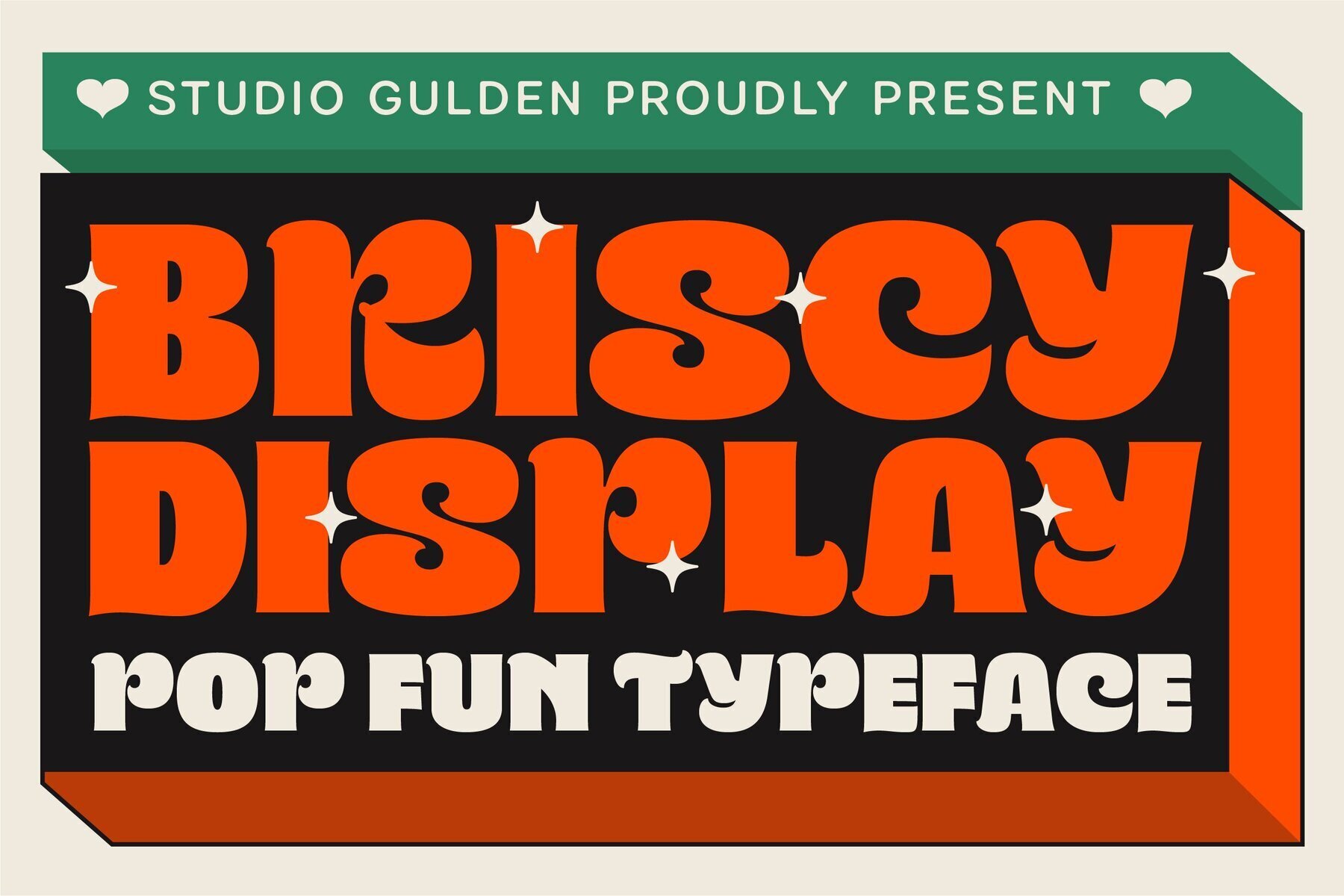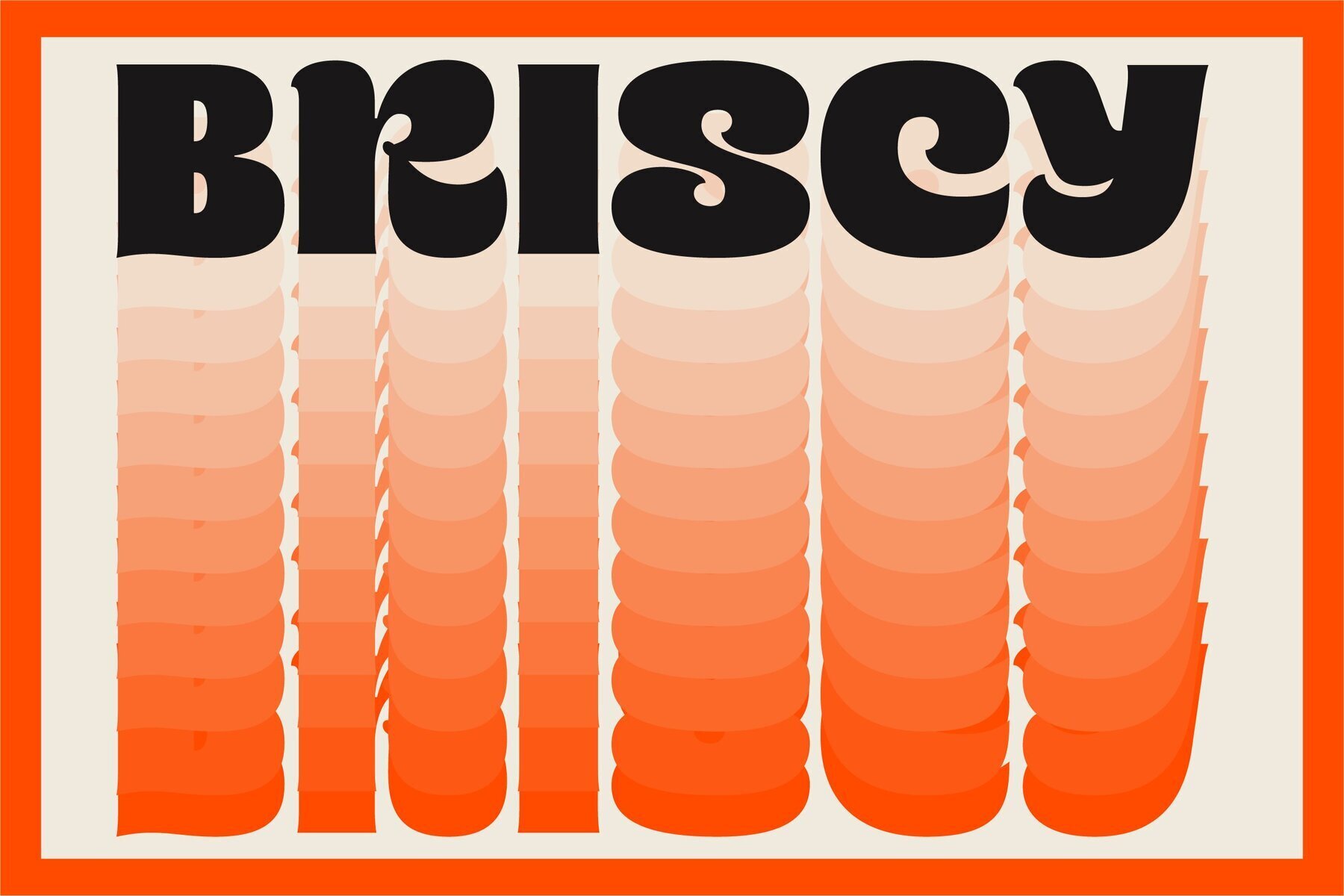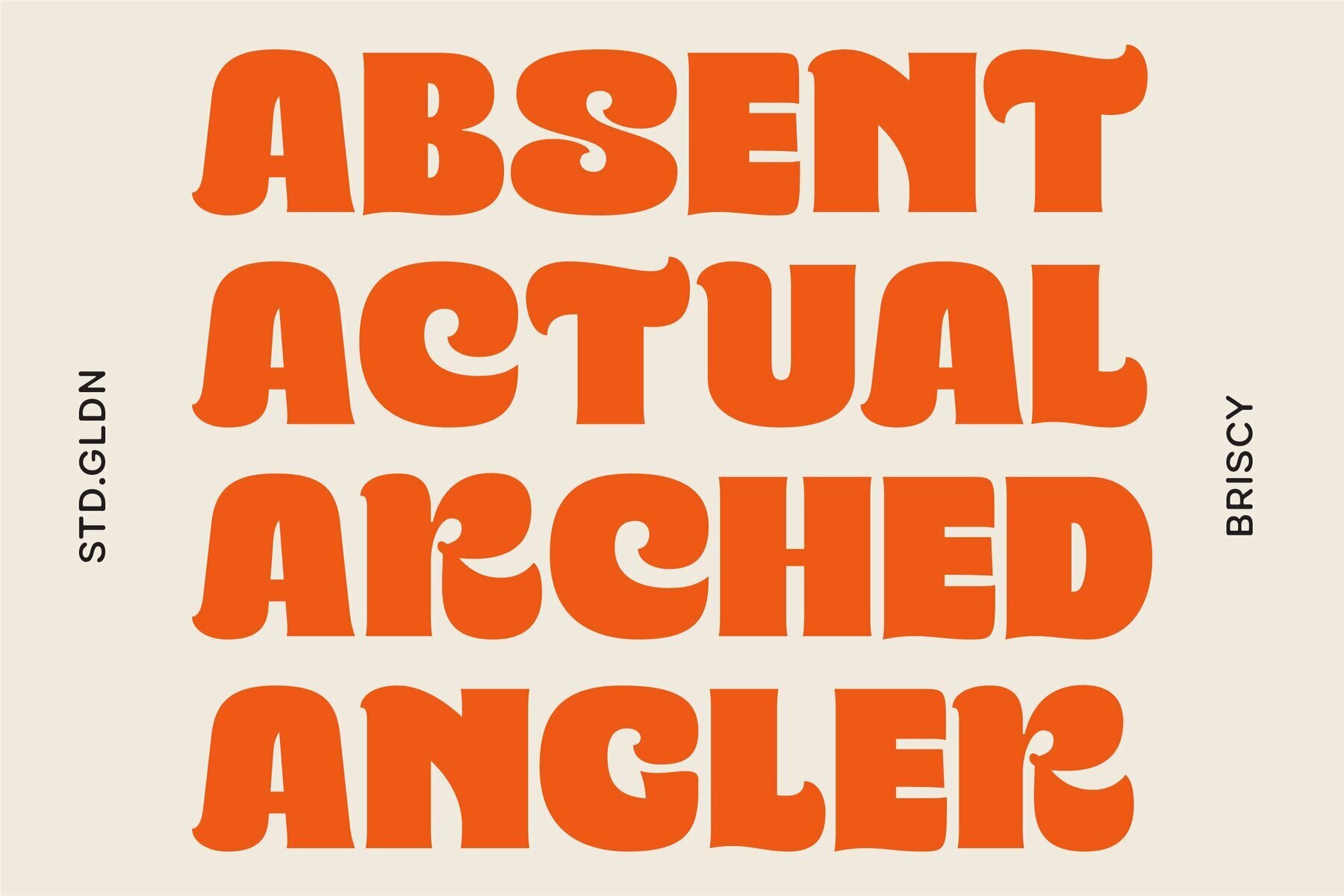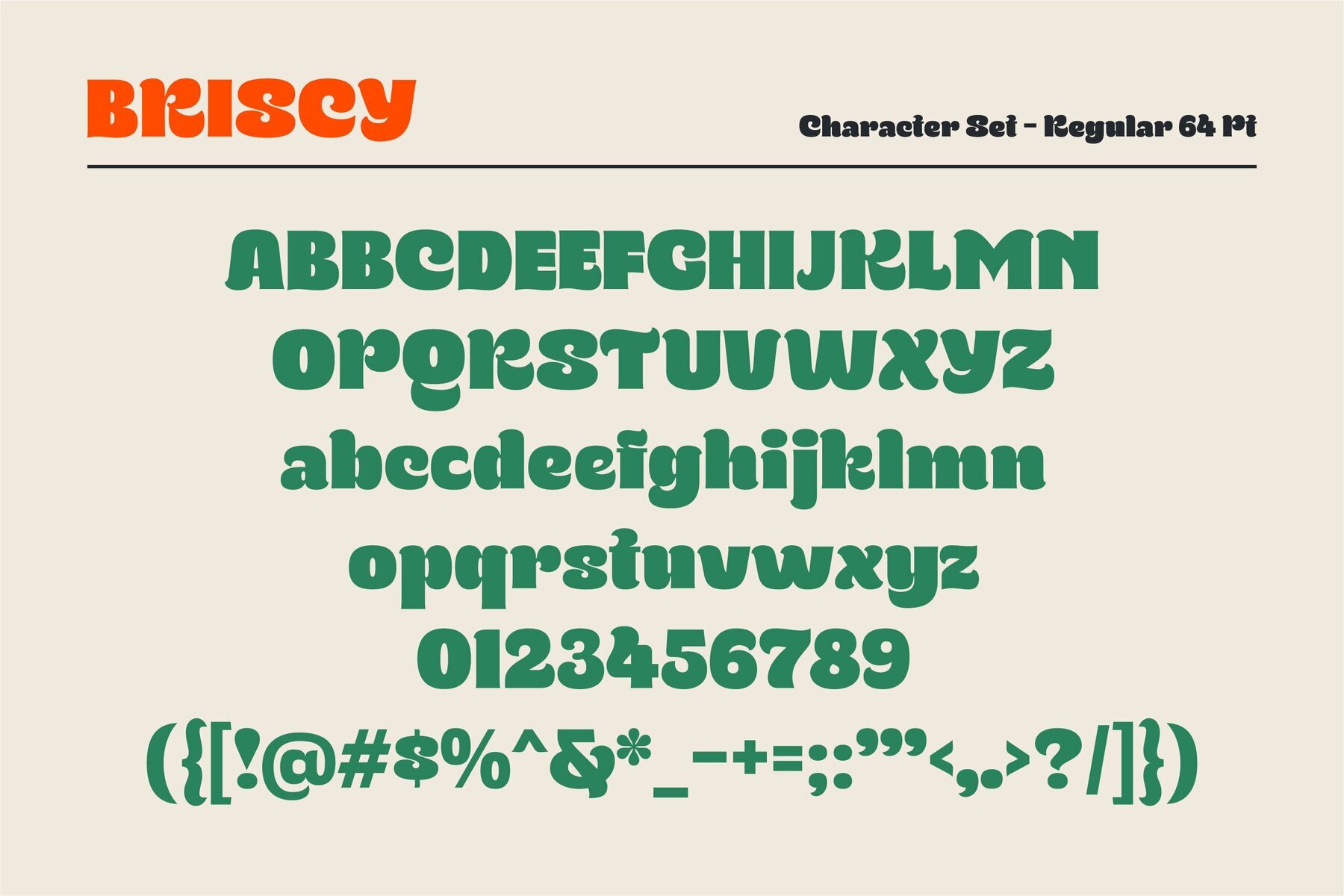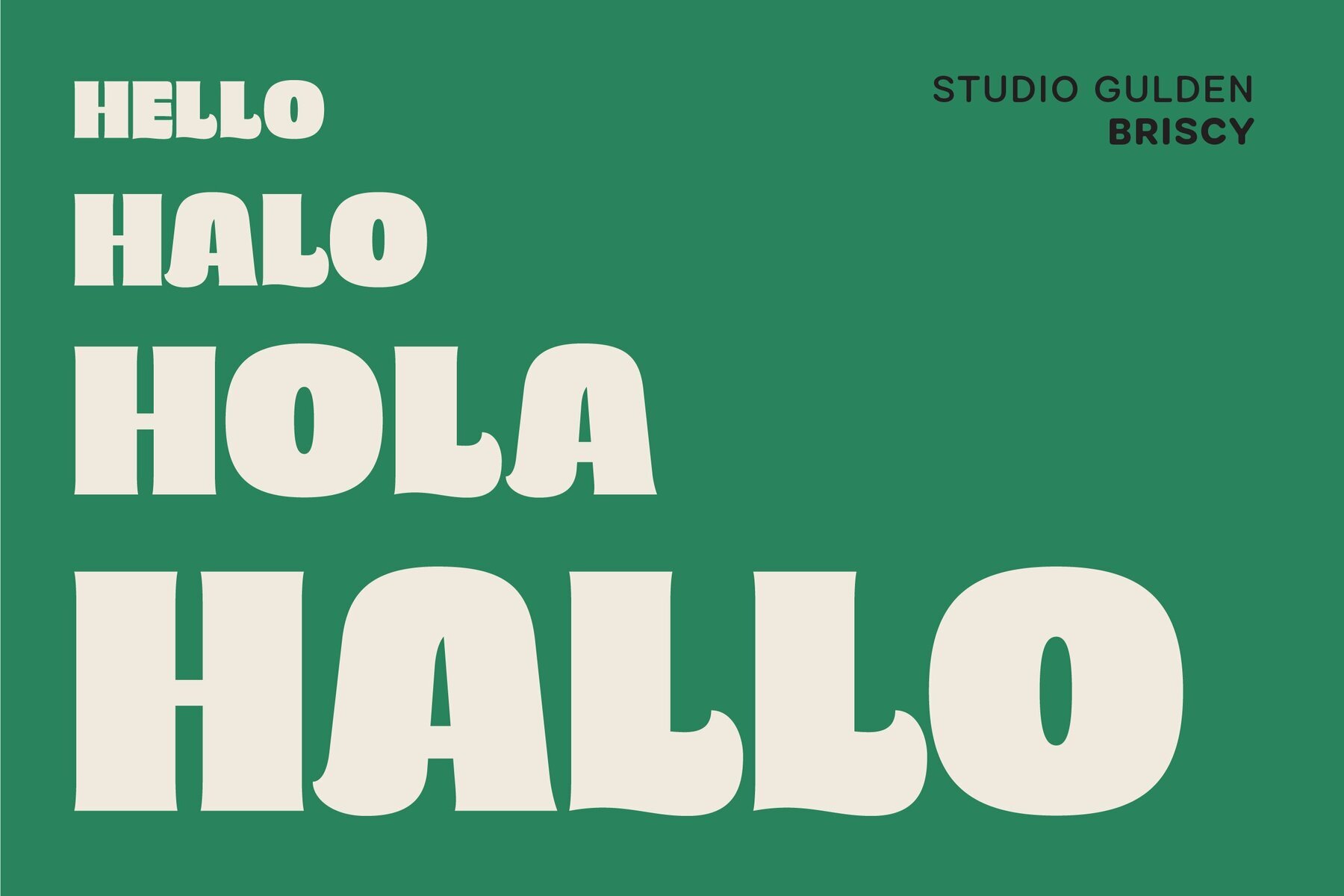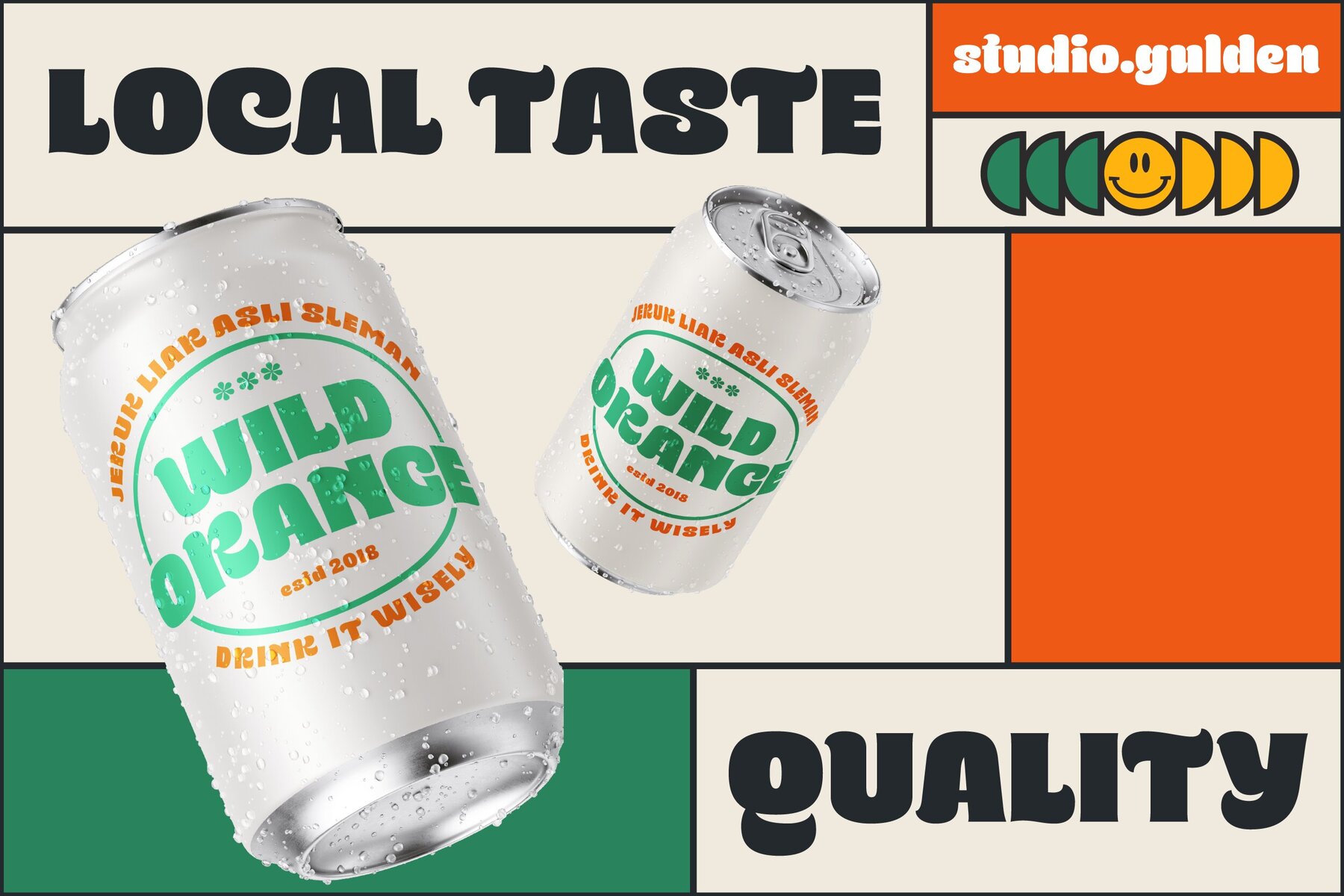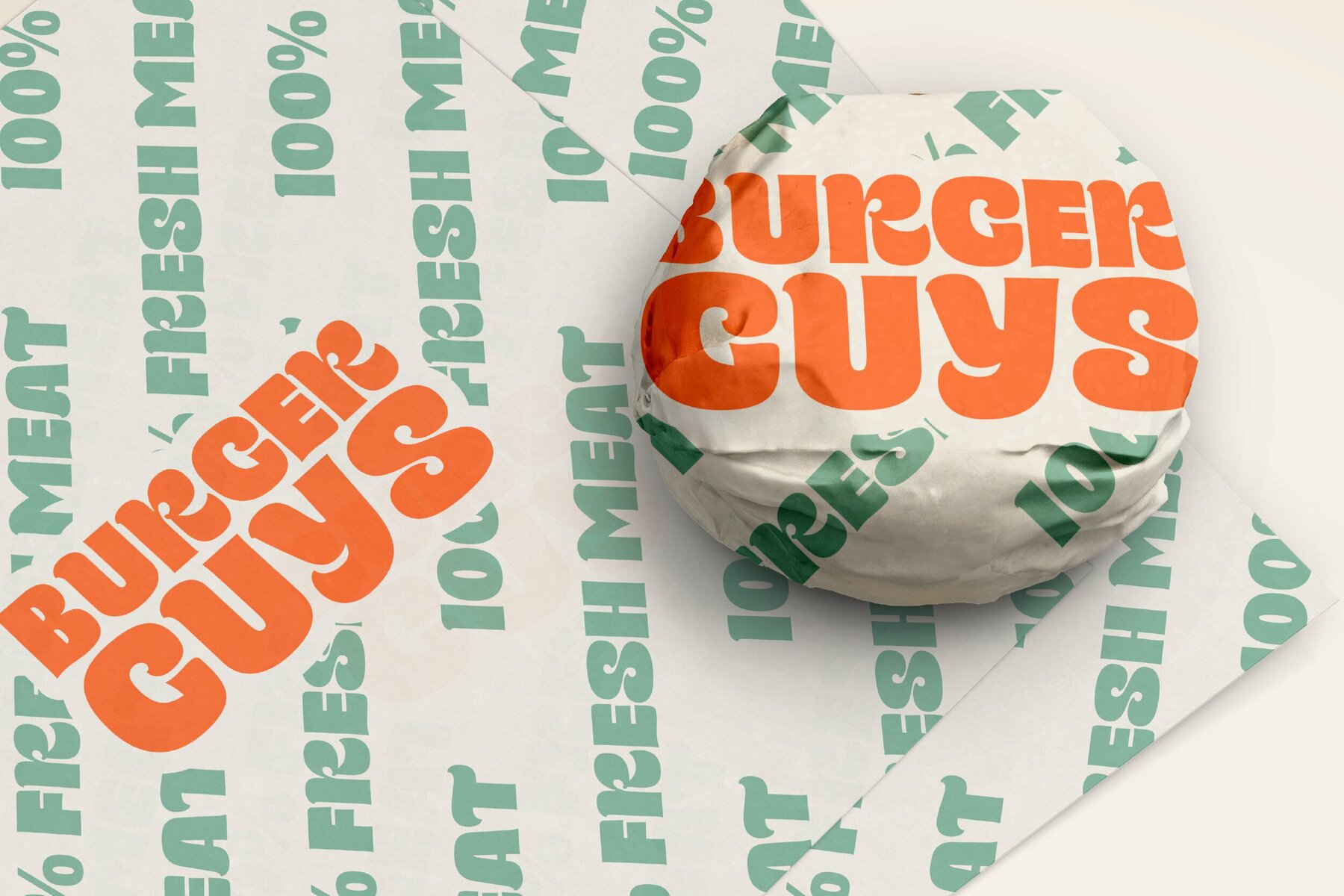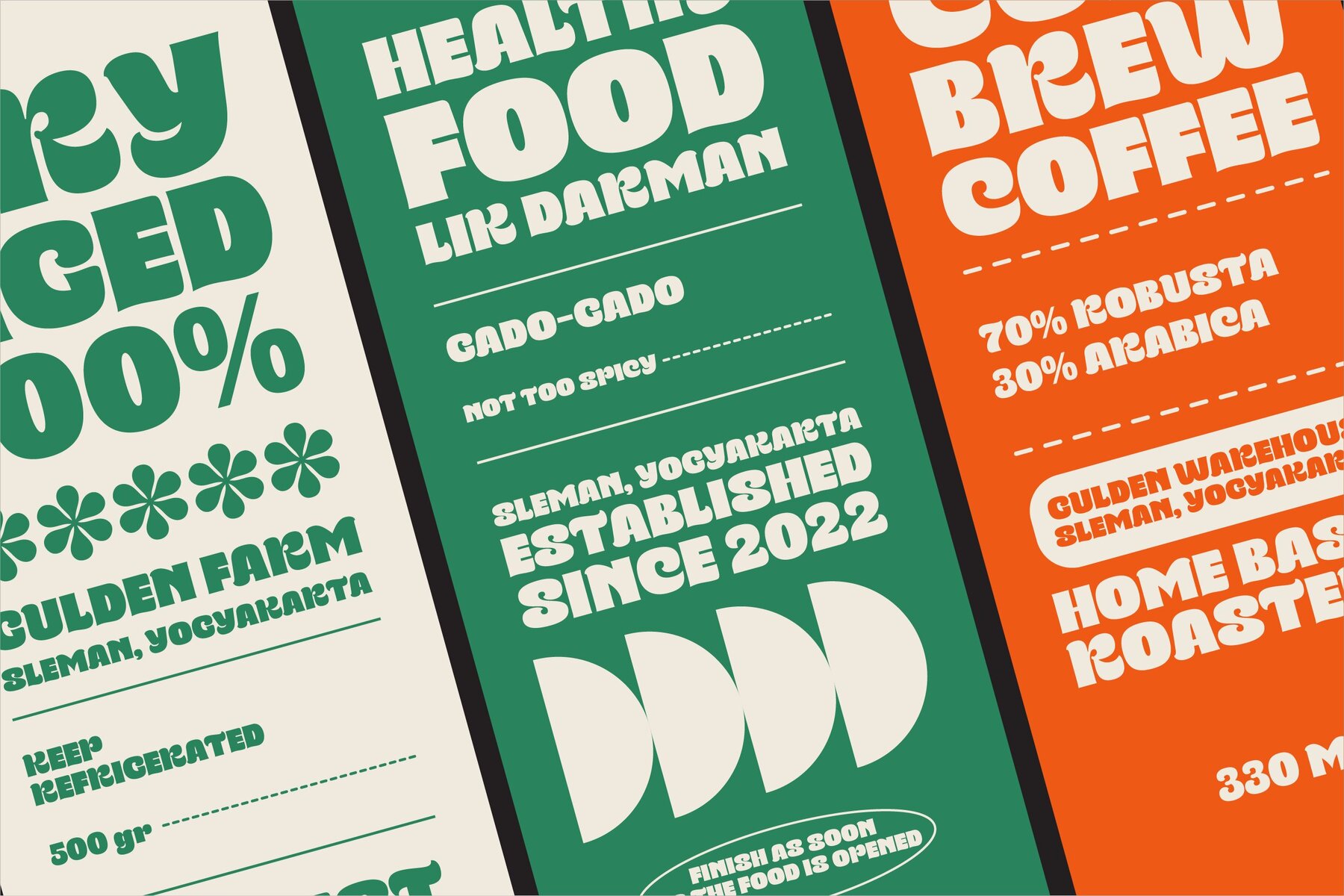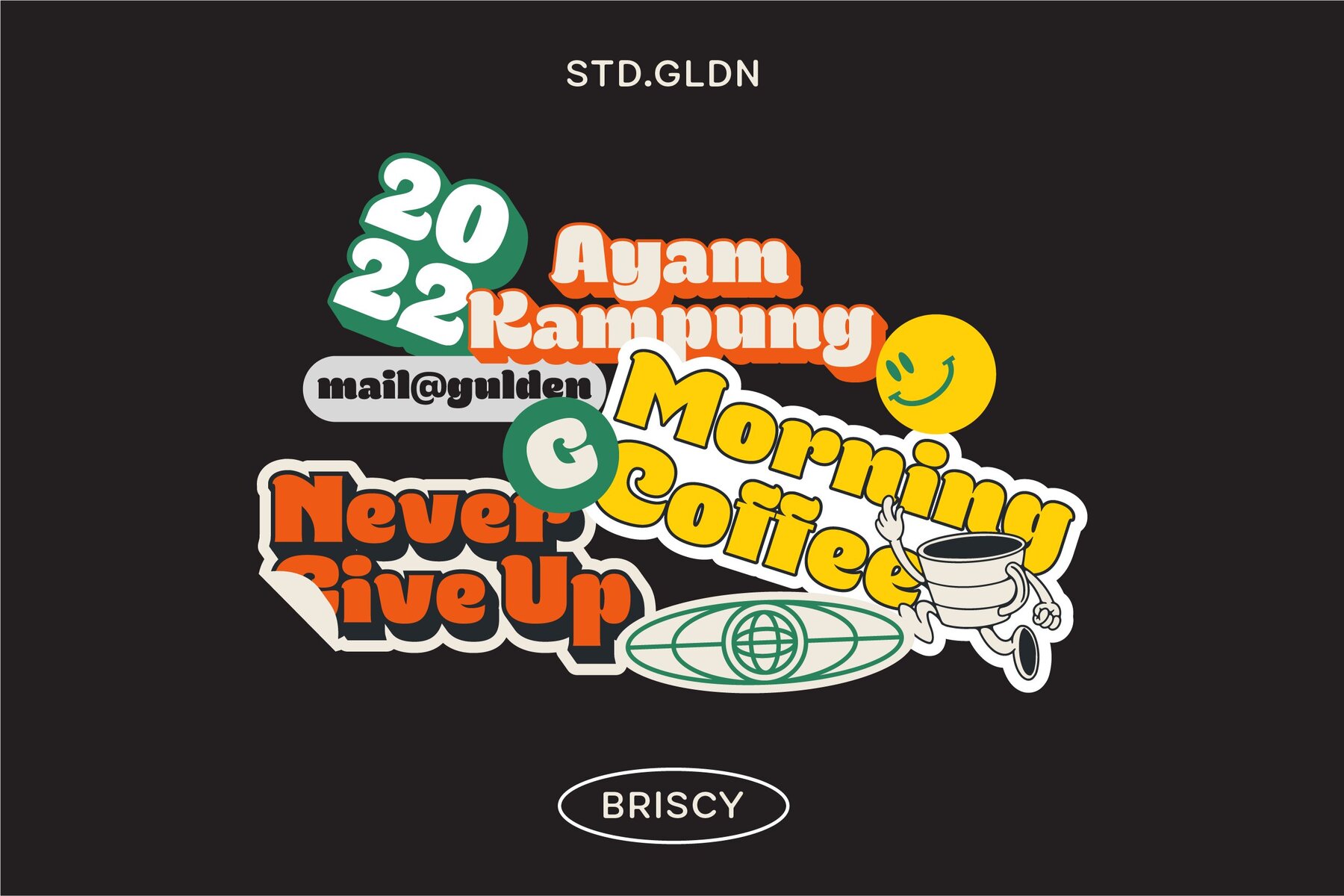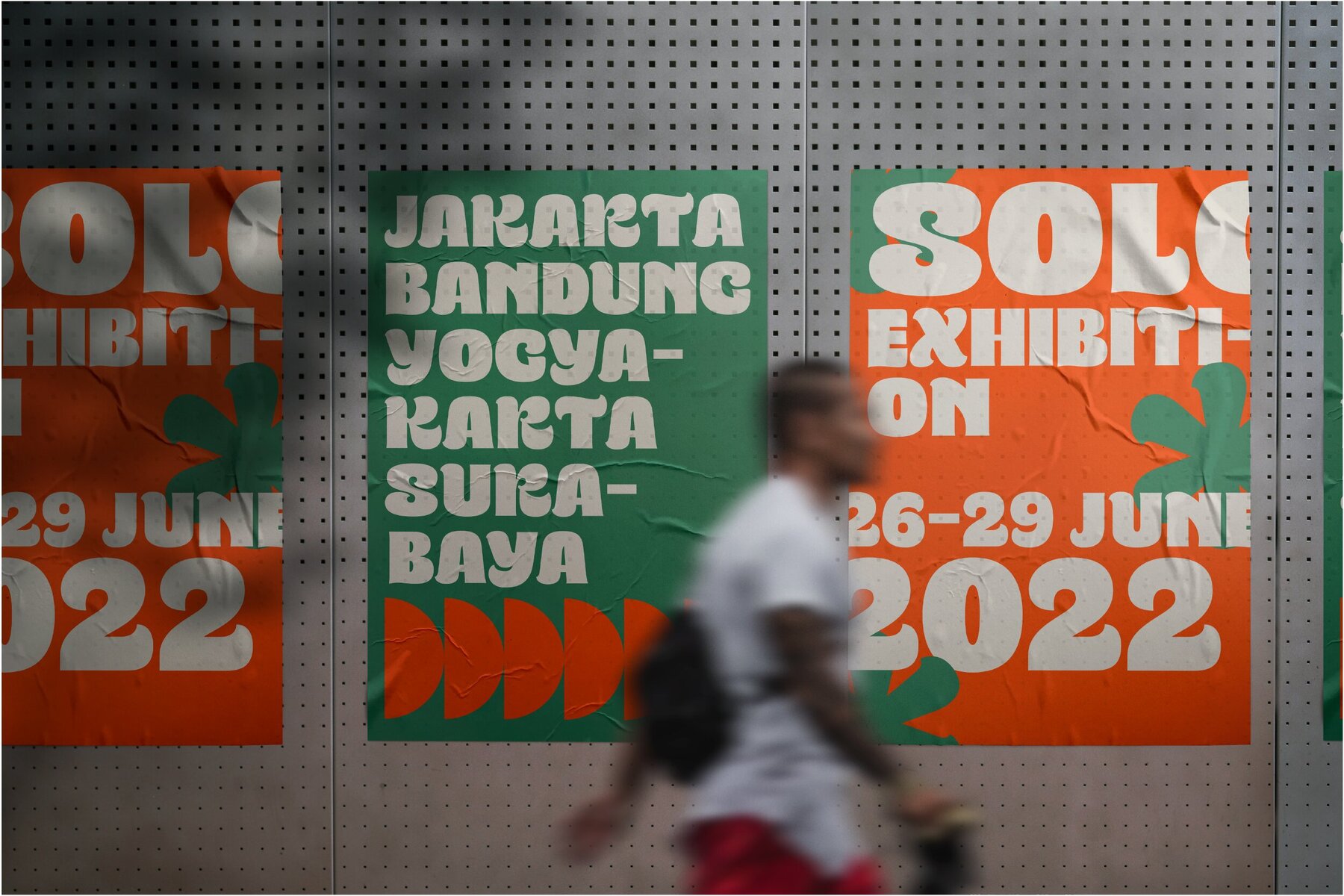
SG Briscy Font
SG Briscy Regular
SG Briscy offers a spirited blend of boldness and playfulness, ideal for designs needing a pop of vibrant style. As a display typeface, it brings a unique character to any creative project, making it an excellent choice for those looking to inject energy and fun into their work.SG Briscy: Bold and Playful Display Typeface